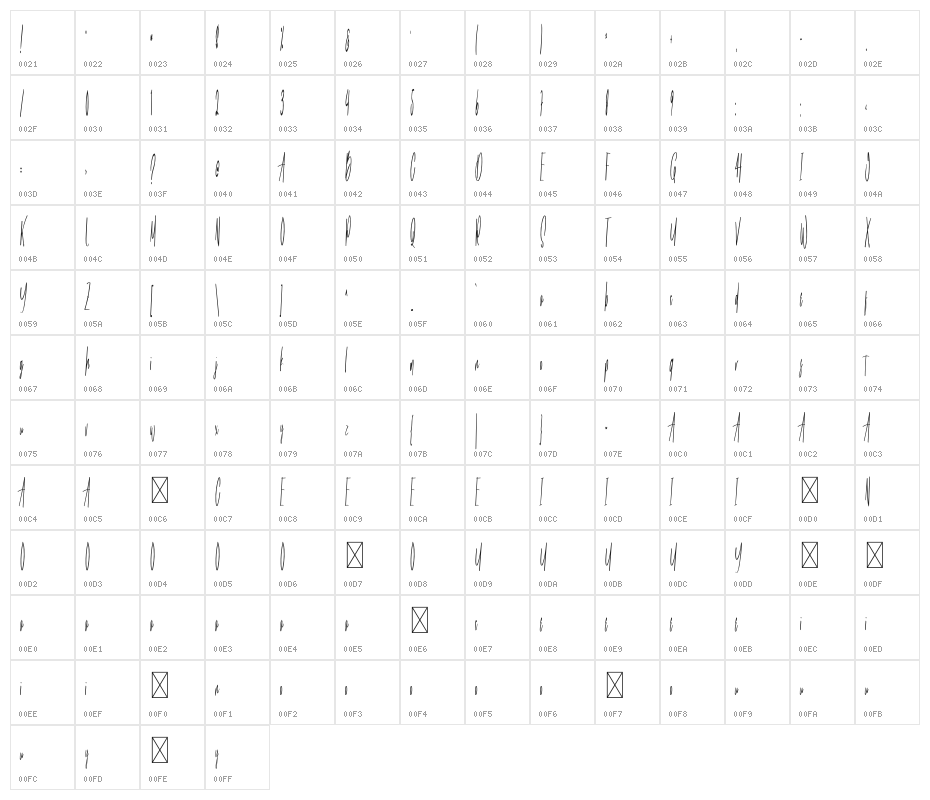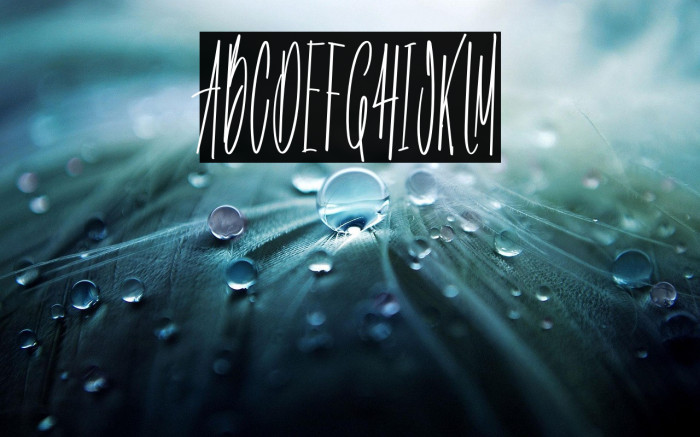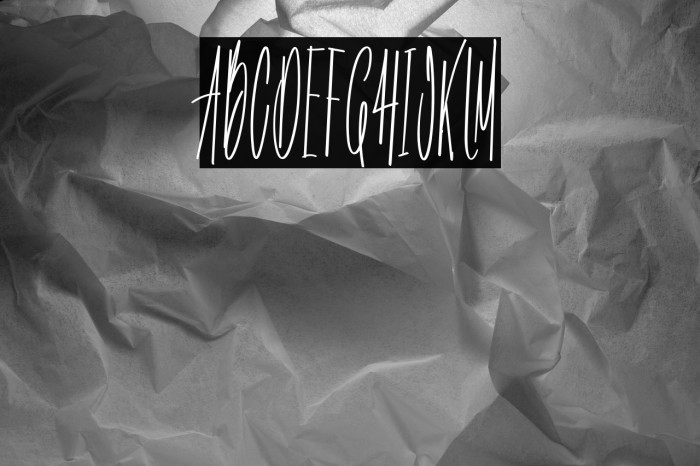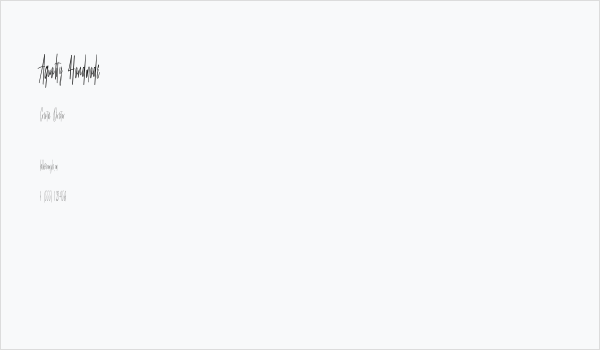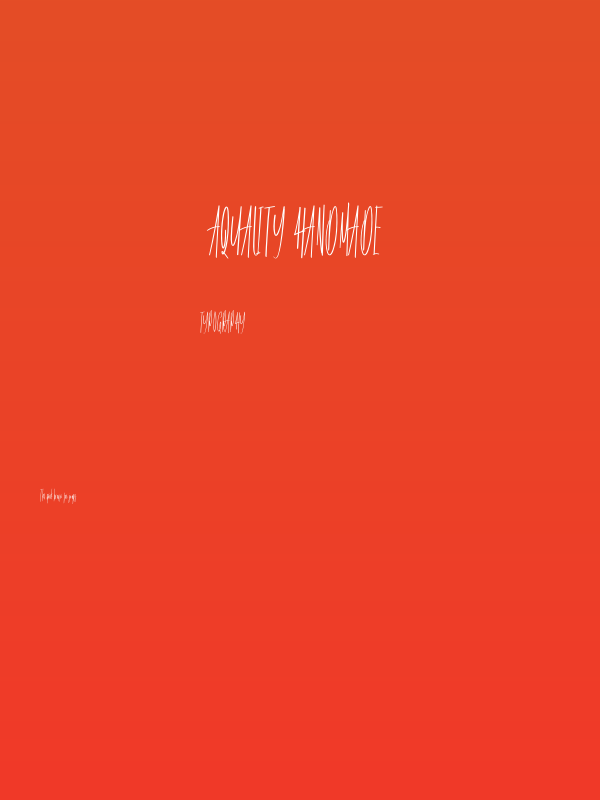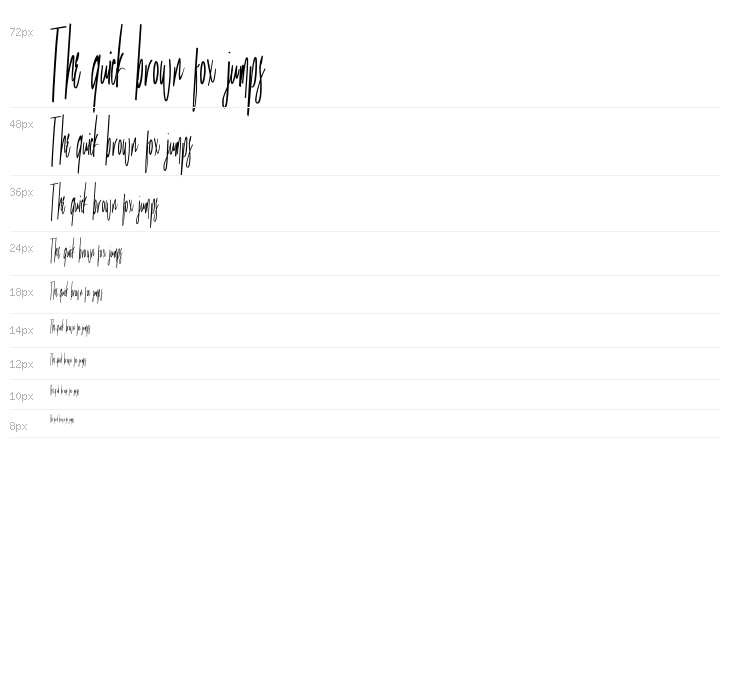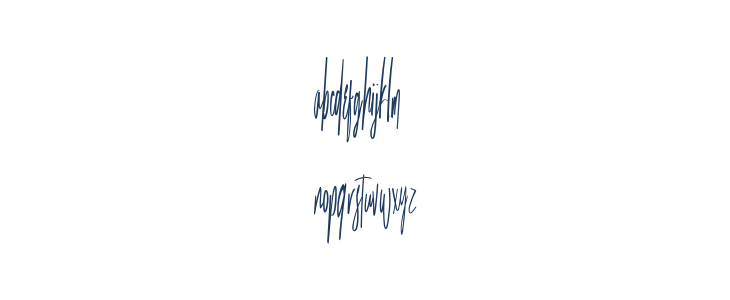
Aquality Handmade Font
Aquality Handmade Description
This font exudes a handmade, artistic vibe with its tall, narrow characters and slightly irregular strokes, giving it a personal and authentic feel. The uppercase letters are elongated and have a playful, whimsical quality, while the lowercase letters maintain a consistent flow, adding to the font's charm. The numbers are similarly styled, with a unique flair that makes them stand out. Special characters are included, maintaining the same handcrafted aesthetic. This font is perfect for projects that require a touch of individuality and creativity, such as invitations, greeting cards, or artistic branding.
Use CaseLogos, Headlines, Artistic projects
Proposed ProjectsIdeal for invitations, greeting cards, artistic branding, and creative projects.